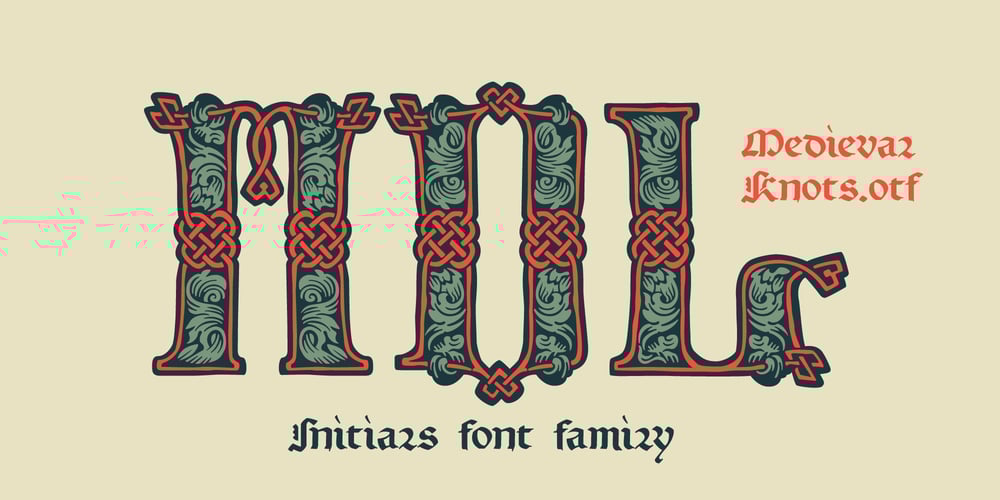
Medieval Knots Font Family was designed by Roman Korolev and published by Kaer. Medieval Knots contains 2 styles and family package options. Medieval Knots font family has Regular and Colored styles. It inspired by Celtic knots initials and lines. It’s all you need to precisely imitate medieval style text. Use this font as a decorative element at the beginning of a paragraph or section, other part of the paragraph should be in regular black letter font.You’ll get Drop Caps & Numbers set.—*You can use color fonts in PS CC 2017+, AI CC 2018+, ID CC 2019+, macOS 10.14 Mojave+ **Please note that the Canva & Corel doesn’t support color fonts!**Please download this test file with only A letter ( https://www.dropbox.com/s/w6n0zmga231xng1/MedievalKnots-Test.otf?dl=0 ) to check your app & system.*—Please feel free to request any help you need: kaer.pro@gmail.comBest, Roman.Thank you!